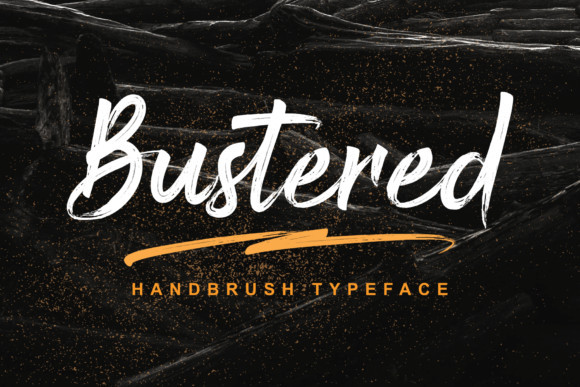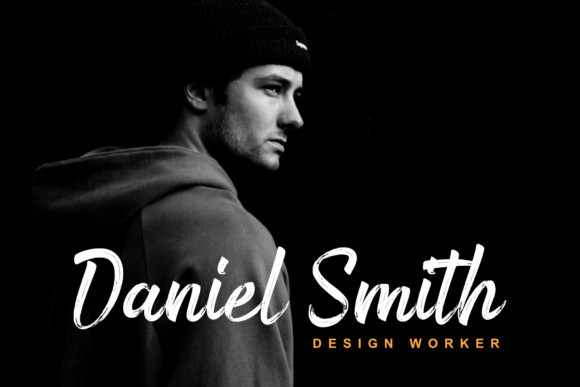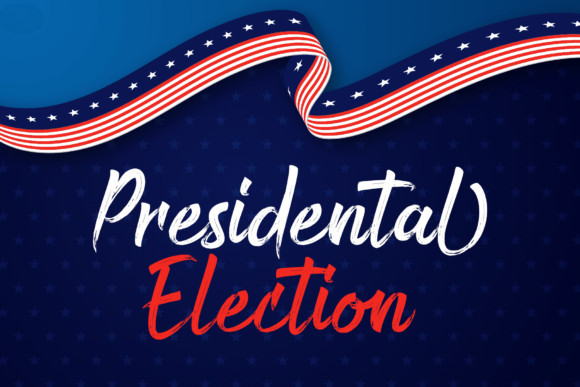
Bustered Font
Bustered FontBustered is a fresh brush style handwritten font. Use it to make your ideas even more realistic and create spectacular designs!